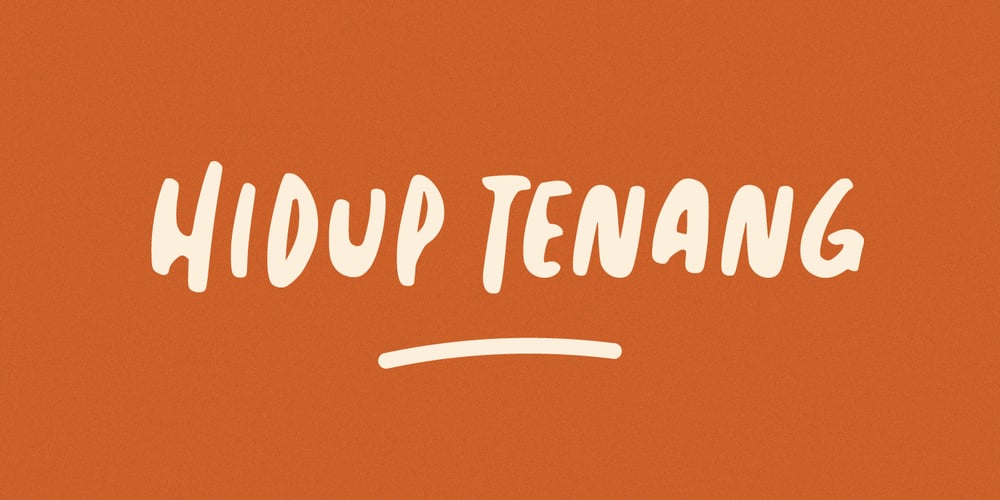
Hidup Tenang
Hidup Tenang font
Hidup Tenang Font Family was designed by Alde Saputro and published by Aldedesign. Hidup Tenang contains 2 styles and family package options. Hidup Tenang is a whimsical, laid-back, and fun display font. No matter the topic, this font will be an incredible asset to your fonts’ library, as it has the potential to elevate any creation.